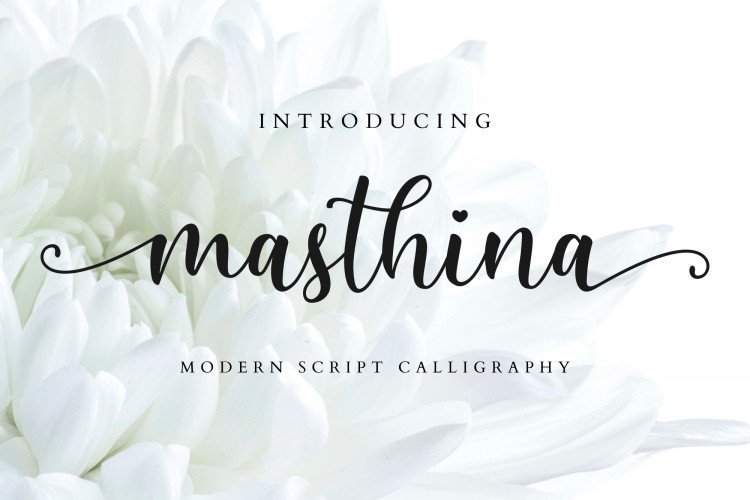
Masthina Calligraphy Font is a lovely calligraphy typeface with a modern bouncy style. It comes with a natural flow looks like a handwritten letter and also we added some swashes and alternates to make the font more elegant.